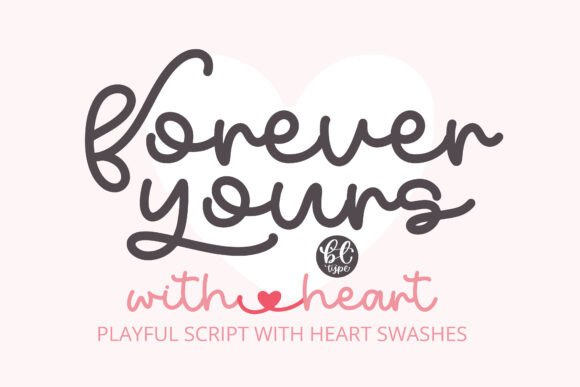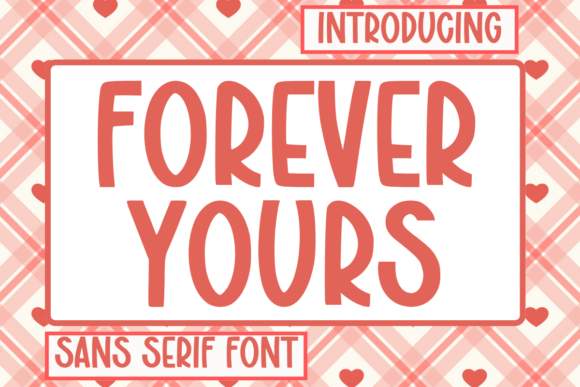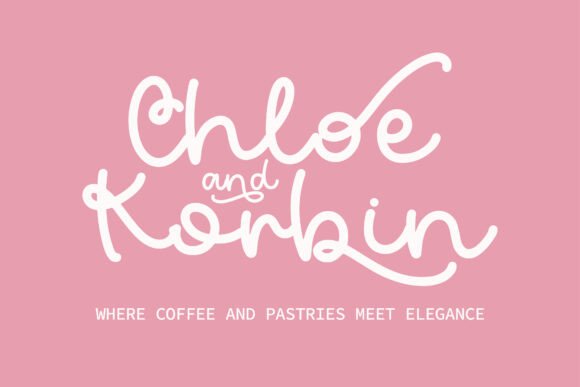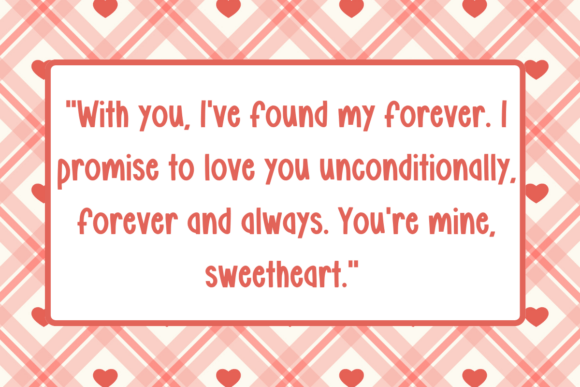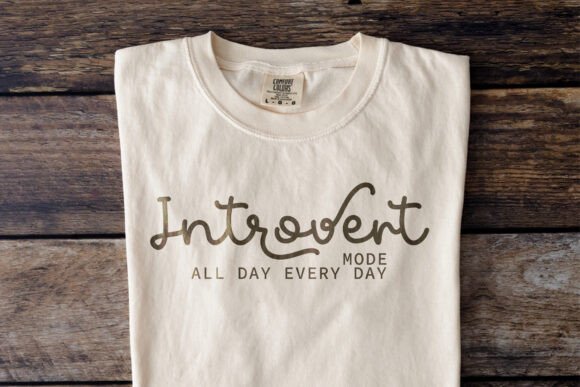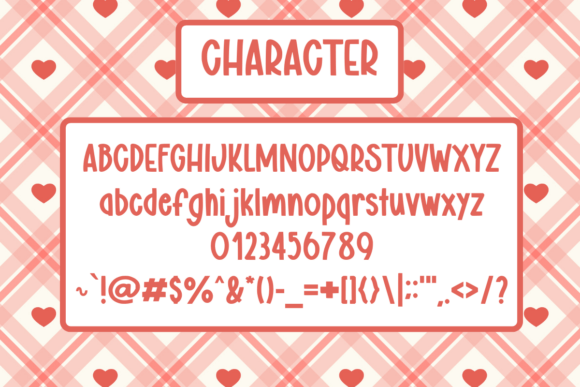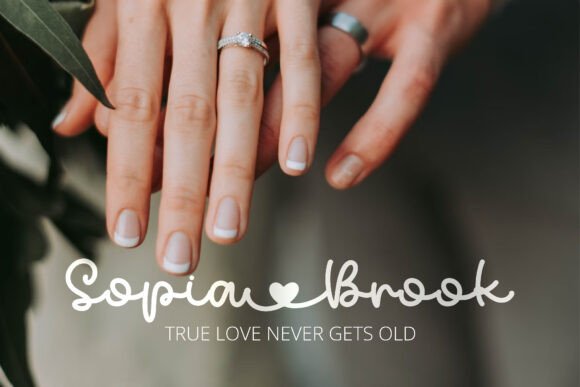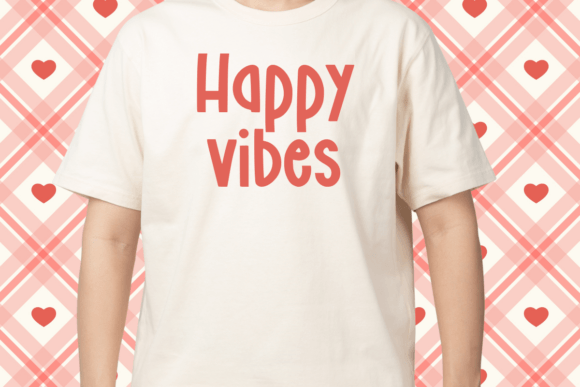
Forever Yours Font
About the Forever Yours Font
Meet Forever Yours Font, a stunning font that brings a touch of elegance and professionalism to any design. Forever Yours is a cool, friendly, and informal handwritten font that can be used for all chalkboard quotes or teaching material! Its authentic look and feel will add a personal and realistic touch to your designs
Forever Yours excels in projects requiring a friendly, approachable feel. Ideal applications include social media graphics, short invitations, branding for cafes or boutiques, and packaging for handcrafted goods. Its informal nature makes it unsuitable for large blocks of body text or formal documents. Avoid using it in user interfaces (UI) or situations demanding high readability.
Pair Forever Yours with a clean sans-serif like Open Sans for a balanced contrast, or a playful script font like Pacifico for a more whimsical feel. For a touch of sophistication, a subtle serif like Lora can complement its handwritten charm. The key is to choose a pairing that anchors the informality of Forever Yours while maintaining visual harmony.
The font’s core personality is undeniably friendly and informal, conveying a sense of warmth and approachability. Its slightly imperfect, hand-drawn quality adds authenticity and charm, perfect for brands emphasizing personality and human connection.